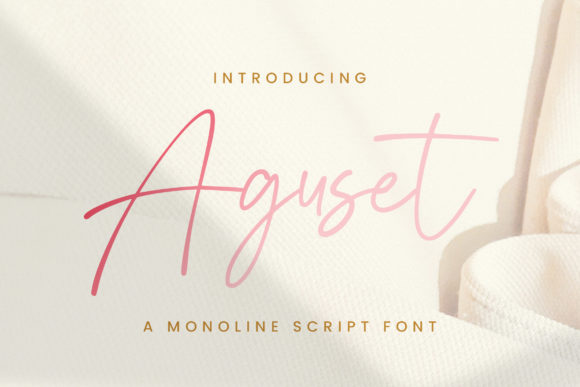
The Aguset Font: A Chic and Refined Script for Your Creative Projects
Aguset is a stunning script font that exudes elegance and refinement. Its stylish alternates and ligatures make it the perfect match for any project that requires a touch of luxury. In this article, I’ll share my honest review of Aguset, provide a practical guide on how to use it, and explore similar fonts that you might love.
- ✅ Elegant and refined script style
- ✅ Stylish alternates and ligatures for added versatility
- ✅ Perfect for luxury branding, wedding designs, and high-end marketing materials
- ✅ Easy to read and works well in both digital and print formats
- ⚠️ Limited use in very casual or playful designs (it’s a sophisticated font, after all!)
- ⚠️ May require some adjustments to work well with certain design elements (e.g., bold fonts or busy backgrounds)
The Story Behind Aguset: Designer Inspiration
Aguset was designed by a team of typographers who wanted to create a font that embodied the essence of luxury and sophistication. Inspired by classic calligraphy and refined script styles, Aguset is the perfect blend of elegance and versatility. Whether you’re working on a high-end branding project or a beautiful wedding design, Aguset is sure to impress.